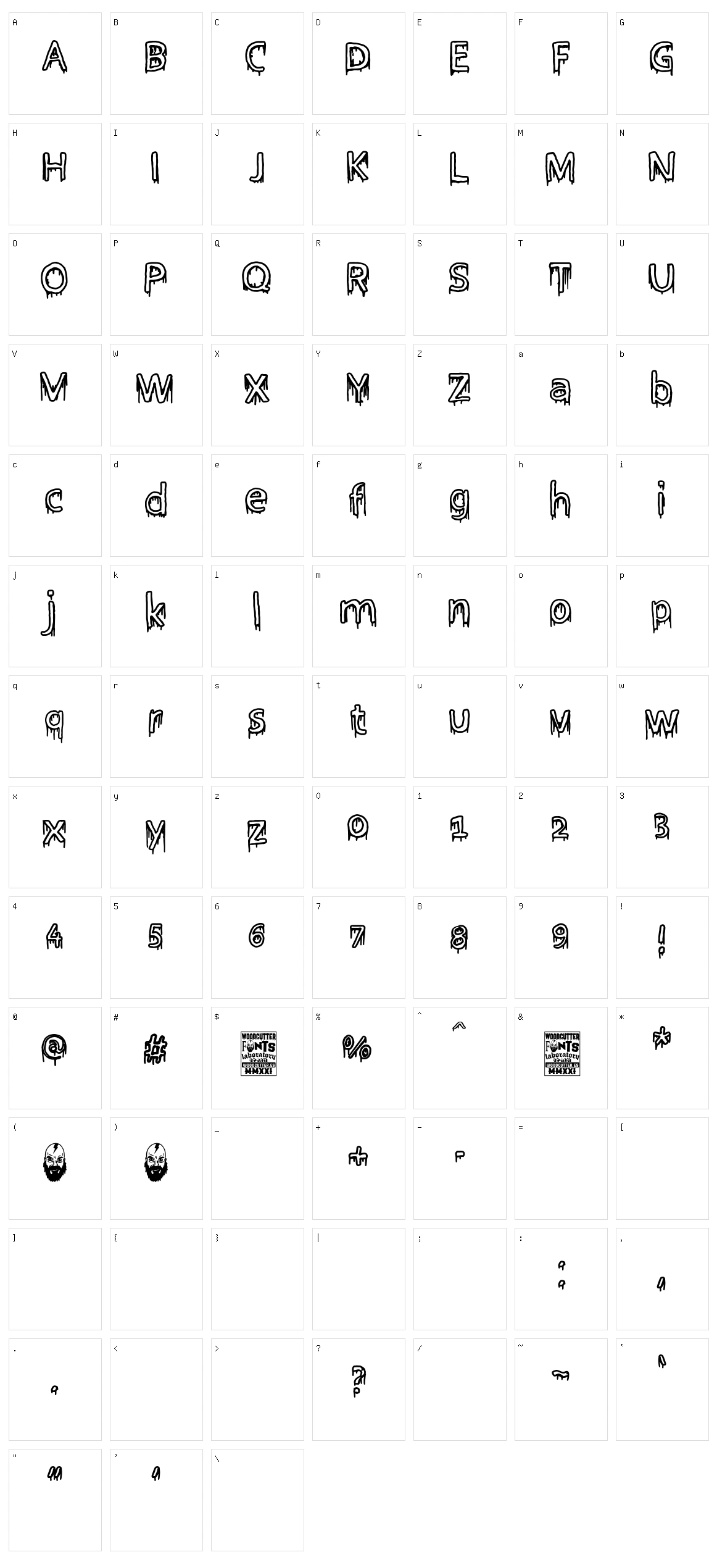
The free font Manitas de Ministro is carefully designed by Woodcutter, showcasing a thoughtful balance of creativity and usability and falls under the Horror font style. When you download the ZIP file, it contains only 100.74 KB of font files, making it lightweight and quick to download. Please review the license details below to understand permitted usage and distribution rights. If license information is not available, we recommend using this font for personal projects only or contacting the author directly for commercial usage permissions.